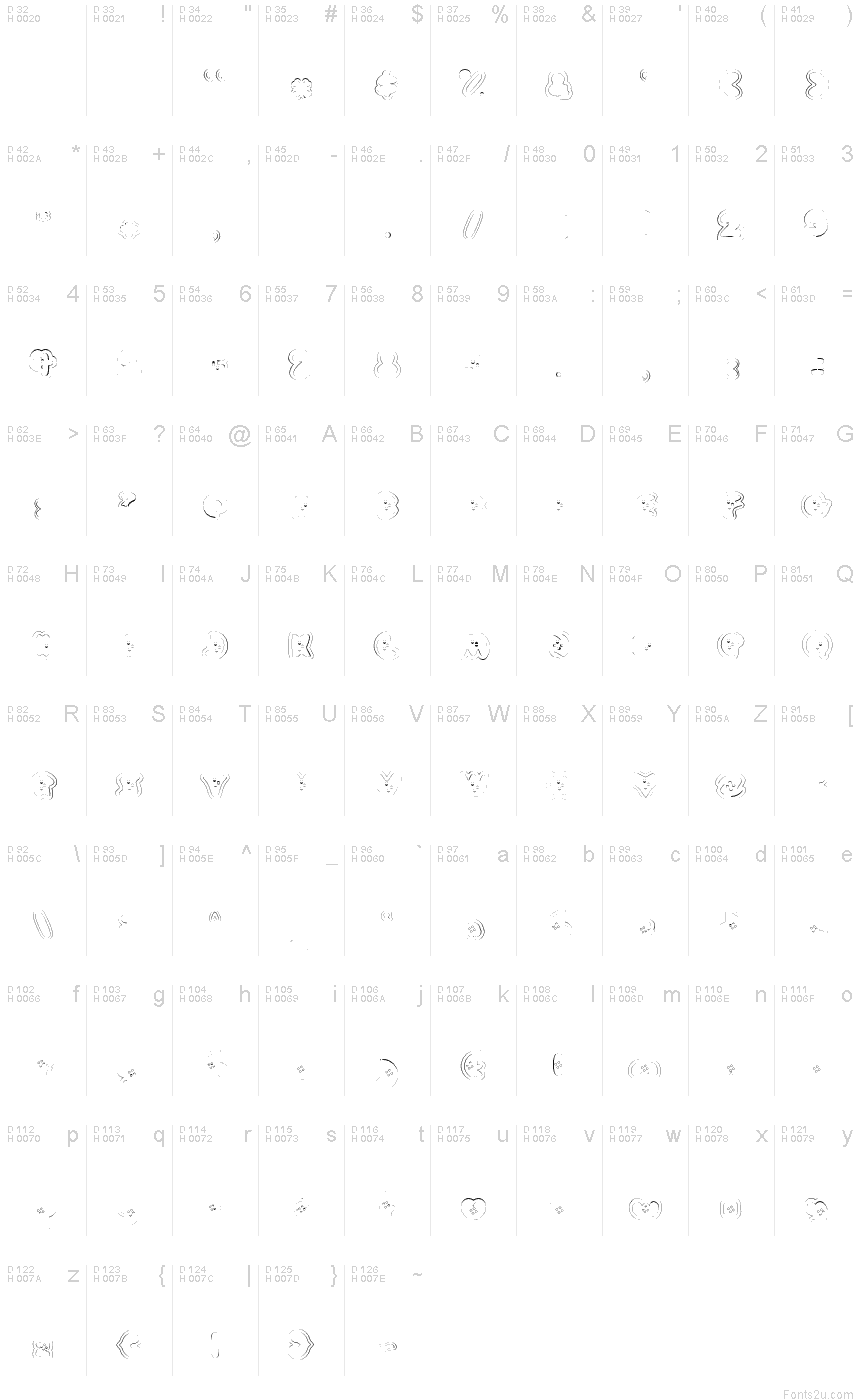
BettyHomemakerRegular
This button font was created by Jen and Stef, TAFE students at NADC TAFE. We are both into arts and crafts and were inspired by sewing and buttons. This font is made to look like buttons and therefore the name BettyHomemaker is to suggest the 'Housewife/Homemaker' would use it. We hope you love it as much as us! :D